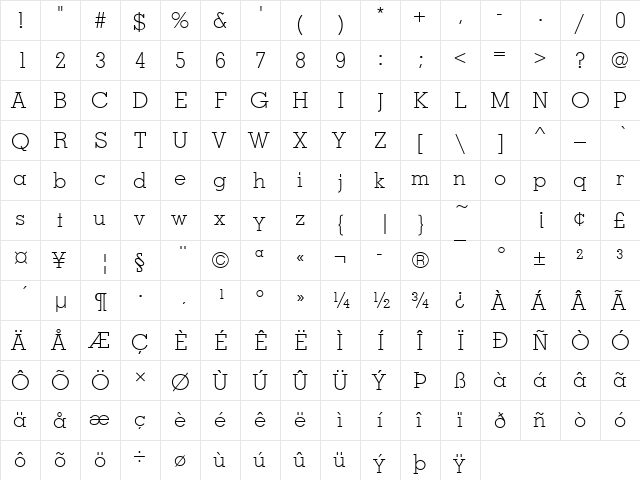
MemphisTExtLig Regular
Design Context for MemphisTExtLig Typeface
MemphisTExtLig offers clean, dependable letterforms without strong stylistic allegiance, making it a practical choice for designers who need flexibility.